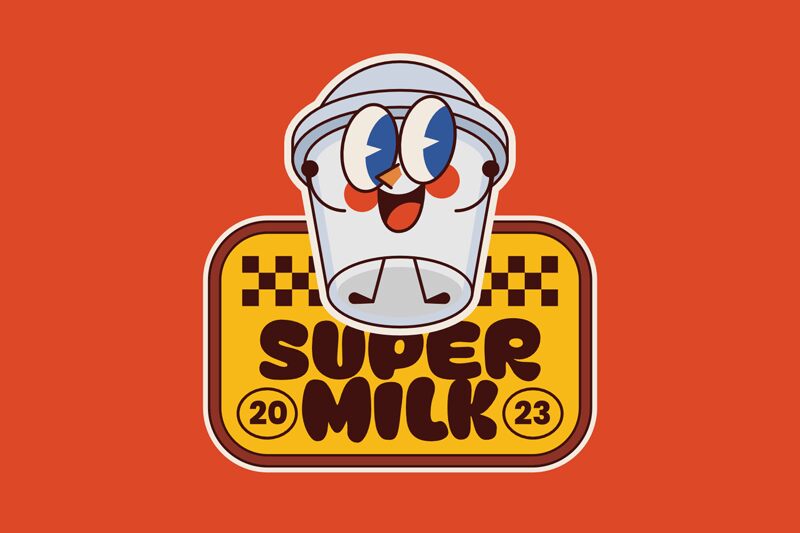
Super Milk
Super Milk, designed by fsuarez913, is a delightful display font that adds a playful touch to any project.
With its extra-bold weight and semi-expanded width, this cartoon-inspired typeface is perfect for creating eye-catching headlines, logos, and posters. It brings a sense of whimsy to children's books, video games, and animated films.
Let Super Milk take your designs to the next level with its bold and cheerful personality.